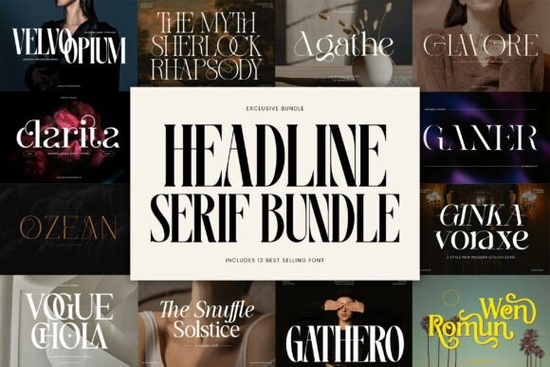
The Headline Serif Bundle Font is a go-to resource for designers seeking a collection of elegant, high-impact serif fonts. This bundle brings together 12 of the most popular headline serif fonts, each crafted to deliver a sense of sophistication and style. Whether you're working on logos, magazine layouts, or luxury branding, this set offers the versatility and refinement needed to make your designs stand out.
Each font in the Headline Serif Bundle features intricate details like high-contrast serifs, elegant ligatures, and sophisticated alternates. These elements allow for creative flexibility, making it easier to craft unique visual identities that feel both modern and timeless. The fonts are especially well-suited for large-scale headlines where their ornate details can shine, making them ideal for editorial projects and high-end design work.
What Makes This Font Bundle Stand Out?
One of the key strengths of the Headline Serif Bundle is its variety. From modern editorial serifs to classic, expressive styles, this collection covers a wide range of design needs. Whether you're aiming for a clean, minimalist look or something more dramatic and bold, there's a font in this bundle that fits. The inclusion of PUA encoding also ensures that all special characters and decorative elements are easily accessible without needing extra software.
The fonts included in the bundle are: Sherlock, Gathero, Wen Romun, The Snuffle Solstice, Ginka Voraxe, Agathe, Clarita, Vorage, Vogue Chola, Ganer, Ozean, and Glavore. Each one has its own distinct personality while maintaining a cohesive aesthetic that works well together in a design project.
Who Can Benefit from This Font Collection?
How to Use These Fonts Effectively
When using the Headline Serif Bundle, consider the context of your project. For example, if you're designing a luxury magazine cover, choose a font with strong, dramatic strokes to match the tone. For a more subtle approach, opt for a font with delicate details that add sophistication without overwhelming the design.
Experimenting with different combinations within the bundle can also help you discover new visual possibilities. Pairing a bold font with a more refined one can create contrast and balance, enhancing the overall impact of your work.